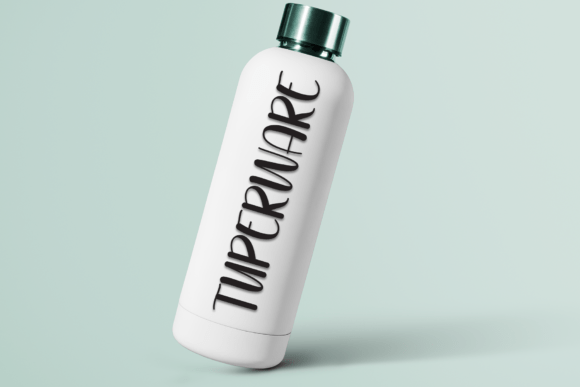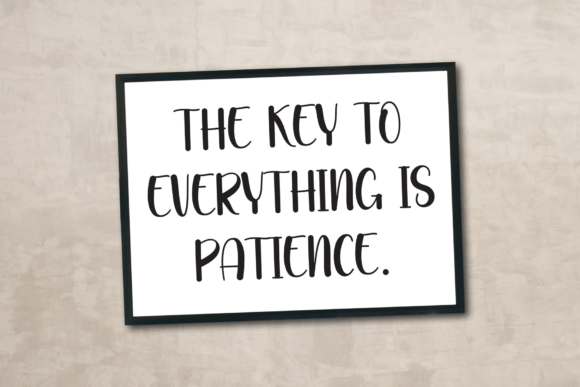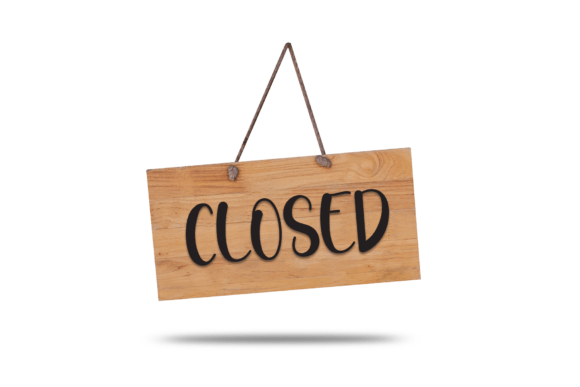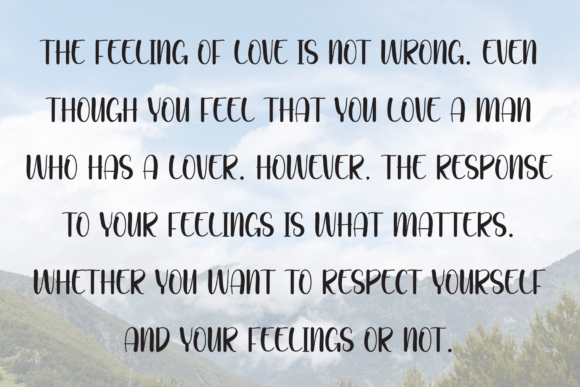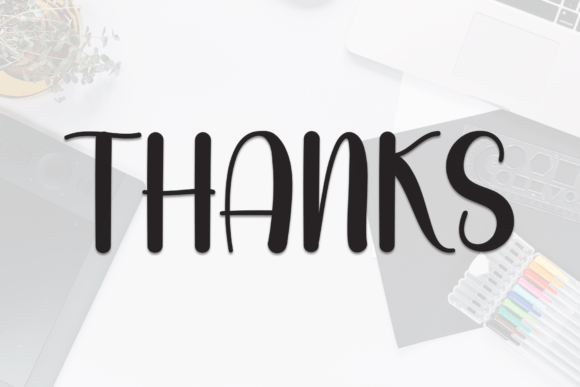
The Designer Font: A Charming, Handwritten Display Font
Have you ever been in the middle of a design project, and suddenly, you’re stuck on finding the perfect font? I recall a particularly frustrating experience while working on a wedding invitation project. My client wanted a font that was both elegant and playful, but I just couldn’t seem to find the right fit. That’s when I discovered the Designer font – a charming, personable handwritten display font that has since become a staple in my design toolkit.
A Delightful Fusion of Sweet and Friendly
The Designer font is a delightful fusion of sweet and friendly, perfectly capturing a delicate blend of whimsy and elegance. This font is expertly crafted to infuse your work with a joyous, fun-filled vibe, making it perfect for crafting heartfelt wedding invitations, personalizing greeting cards, or adding that extra sparkle to any design project.
- ✨ The font’s unique blend of whimsy and elegance makes it perfect for a wide range of design projects.
- ✅ The handwritten display font has a charming, personable feel that’s sure to capture the attention of your audience.
- 💕 The font’s sweet and friendly tone makes it ideal for projects that require a touch of warmth and personality.
While the Designer font is an excellent choice for many design projects, there are a few quirks to be aware of:
- ⚠️ The font may not be suitable for body text, as it’s designed primarily for display purposes.
- 🤔 Some users may find the font’s handwritten feel too playful for certain projects, such as corporate branding or formal events.
- Experiment with the font’s OpenType features, such as glyphs and stylistic alternates, to add visual interest to your design.
- Explore the font’s OpenType features, such as glyphs and stylistic alternates, to add depth and visual interest to your design.
- Use the font’s stylistic alternates and glyphs to add visual interest to your document.
The Designer Inspiration
The Designer font was inspired by the art of handwriting and the joy of creating something beautiful by hand. The font’s creator wanted to capture the essence of a handwritten font that’s both elegant and playful, making it perfect for a wide range of design projects.
Q: What type of projects is the Designer font best suited for?
A: The Designer font is perfect for crafting heartfelt wedding invitations, personalizing greeting cards, or adding that extra sparkle to any design project.